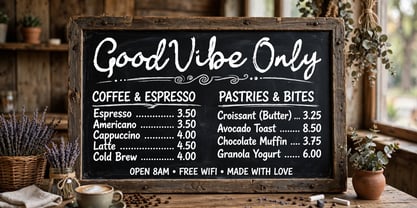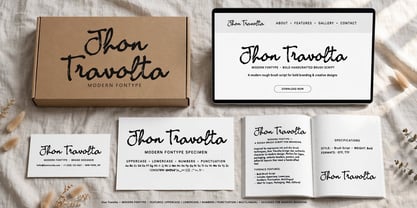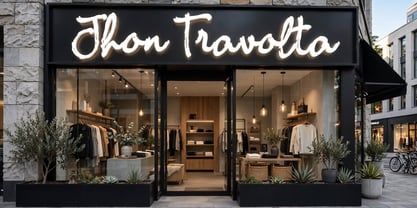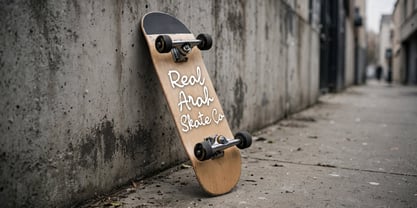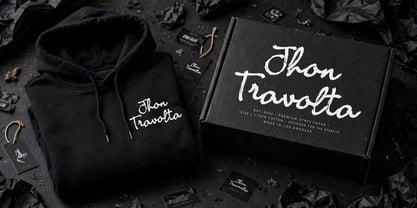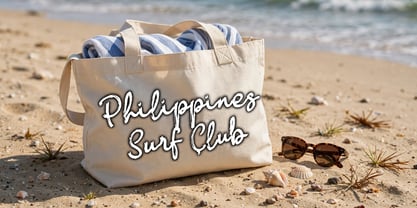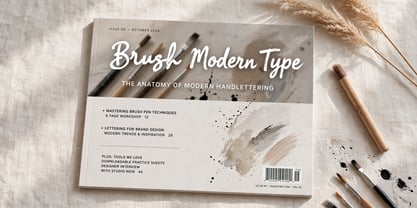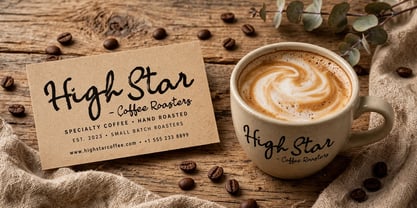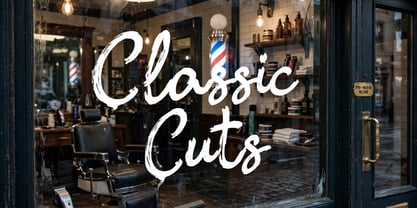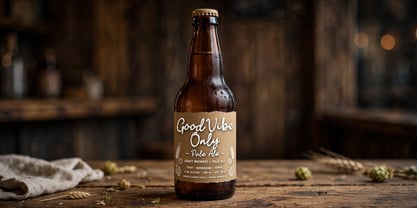
Jhon Travolta
by Ayska
The Jhon Travolta Font Family was designed by Dhoni Trihatmoko and published by Ayska. Jhon Travolta contains 1 styles. More about this family
Jhon Travolta has been designed to fit a wide range of projects from urban style to classic branding with a full alternative characters set to completely change the look of your design. Its flaws and differences give it a unique personality and capture the actual spirit of street art, where each stroke is distinctive. You can use it for business branding, Instagram quotes, blog headers, fashion apparel, stationery and more...
Designers: Dhoni Trihatmoko
Foundry: Ayska